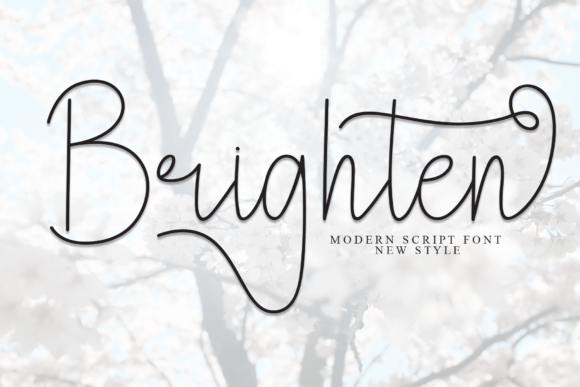
Unlock the Power of Personal Expression with Brighten Font
Have you ever found yourself stuck in a creative rut, longing for a spark to ignite your next project? You’re not alone. We’ve all been there, searching for that perfect combination of style and personality to bring our designs to life. For designers and creatives, finding the right font can be the key to unlocking a new level of expression and inspiration.
Enter Brighten Font, a stunning handwritten script font that effortlessly blends modern elegance with a playful touch. This versatile typeface is designed to add warmth, sophistication, and creativity to any project, from logos and packaging to invitations and beyond. With its fluid strokes and charming curves, Brighten Font is the perfect tool for designers looking to add a personal touch to their work and make a lasting impression on their audience.
Brighten Font Key Features
- Unique Characteristics: Brighten Font features a clean and modern design, with subtle rounded edges and a balanced x-height, making it ideal for body text and headlines in various contexts.
- Font Weight and Style: The font family includes multiple weights and styles, including Light, Regular, Medium, Bold, and Italic, allowing users to choose the perfect fit for their design needs.
Brighten Font Review
As a designer, I’ve had the chance to work with Brighten Font and I’m excited to share my honest review.
- Unique blend of modern and vintage flair: Brighten Font successfully combines the best of both worlds to create a truly distinctive look.
- High-quality typography: The font is crisp, clear, and well-designed, making it perfect for a wide range of applications.
- Customization options: Brighten Font offers a range of customization options, from size and color to texture and effects, giving designers the flexibility they need to create unique designs.
- Limited character set: While the font is high-quality, its character set is somewhat limited, which may make it less suitable for certain projects.
- Not ideal for small text: Due to its unique design, Brighten Font may not be the best choice for small text, where readability is crucial.
Brighten Font is a solid choice for designers looking to add a touch of elegance and sophistication to their projects. While it may have some limitations, its unique design and high-quality typography make it a worthwhile investment. I’d recommend it for projects where a distinctive look is key, such as branding, packaging, or editorial design.
Alternatives to Brighten Font for Designers
Lato Font is a clean and modern sans-serif typeface. It’s ideal for use in headlines, titles, and short paragraphs where you want to convey a sense of elegance and sophistication. Compared to Brighten Font, Lato Font has a more subtle and understated look, making it suitable for a wider range of applications.
Open Sans Font is a highly legible and versatile sans-serif typeface. It’s perfect for use in body text, captions, and other areas where readability is crucial. Compared to Brighten Font, Open Sans Font has a more neutral and professional look, making it suitable for a variety of contexts.